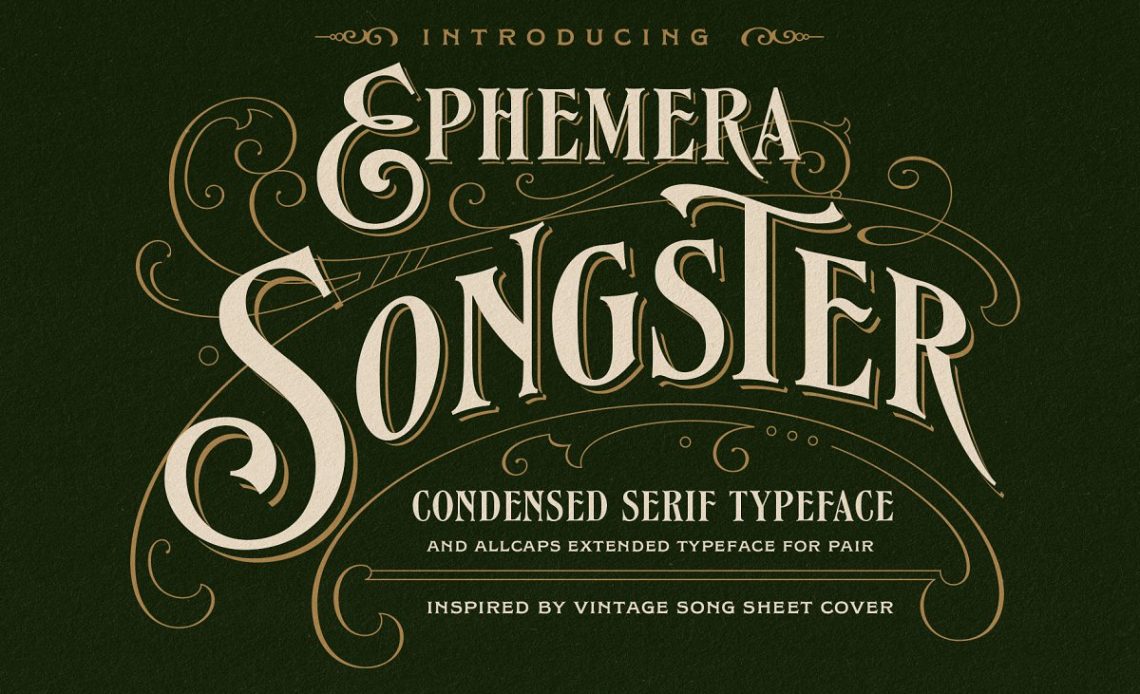
Introducing the Songster Typeface + Extras, a premium serif font family created by Ilham Herry. Inspired by the vintage song sheet cover from the 19th century, this font offers a unique and classic touch to your design projects.
The Songster Typeface + Extras comes with 2 styles, All-caps Regular and Line Shade, perfect for your display needs such as signage, poster, logo, label, headline, cover design, and many more. The font is also available with pair font and ornament extras, giving you more options to elevate your design game.
One of the best things about this font is its OpenType features that support stylistic alternate characters, which give a unique personality to your typography composition. This font family is a perfect choice for those looking for a thick n thin serif typeface with a vintage look.
In summary, Songster Typeface + Extras is a versatile, classic, and eye-catching font family that will bring your designs to the next level. Don't miss out on this opportunity to enhance your project and make it stand out from the rest. Happy designing!